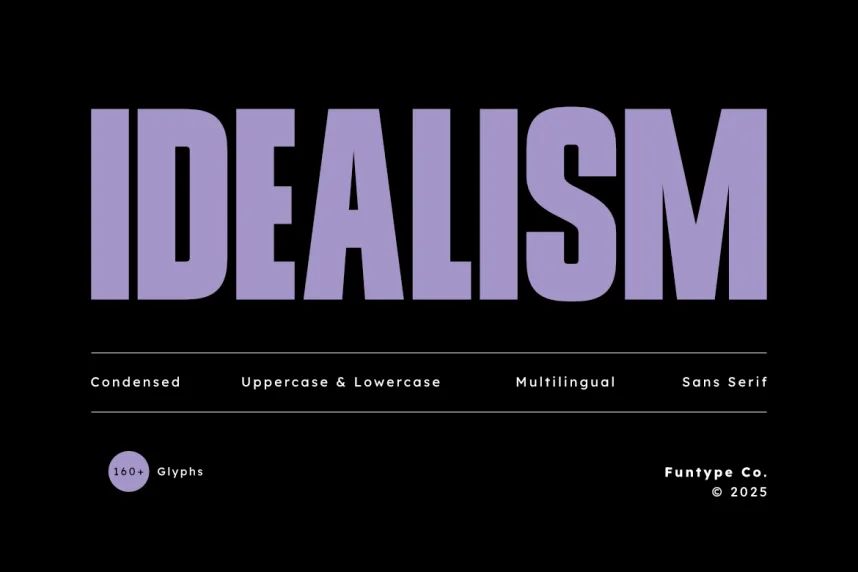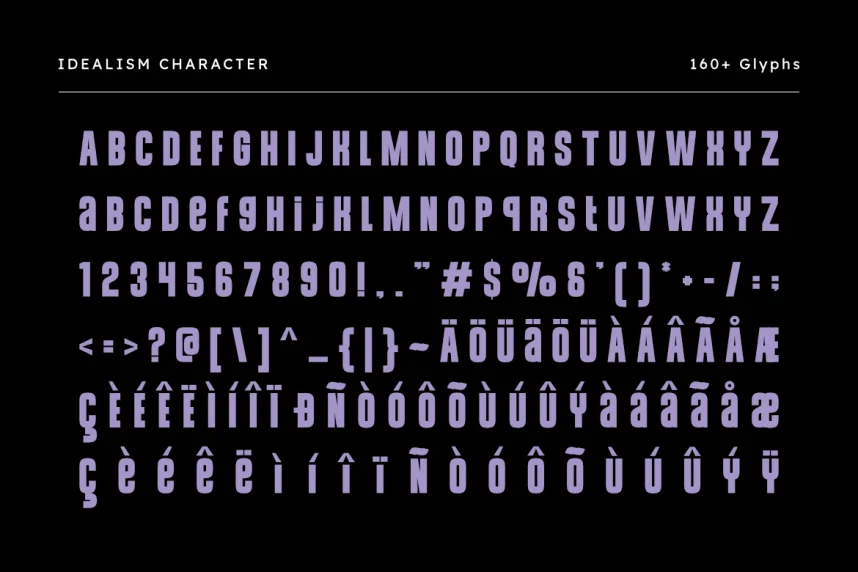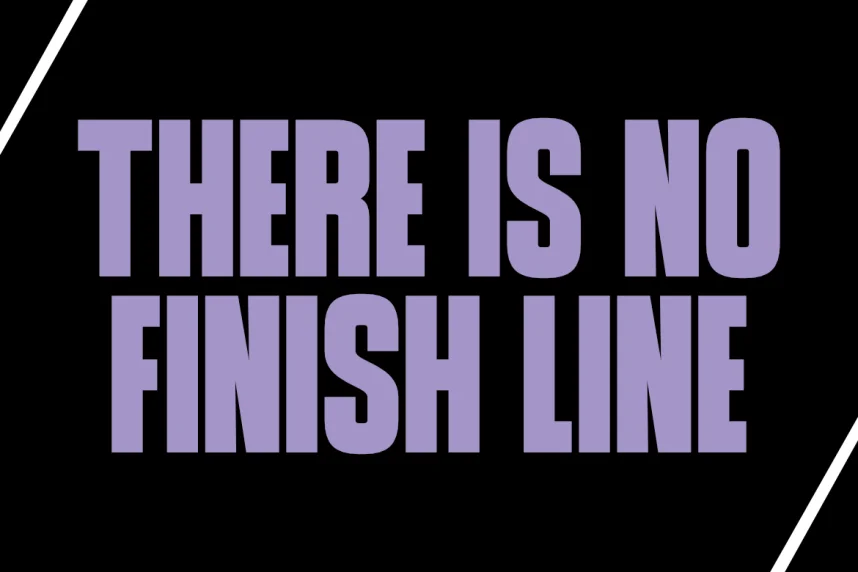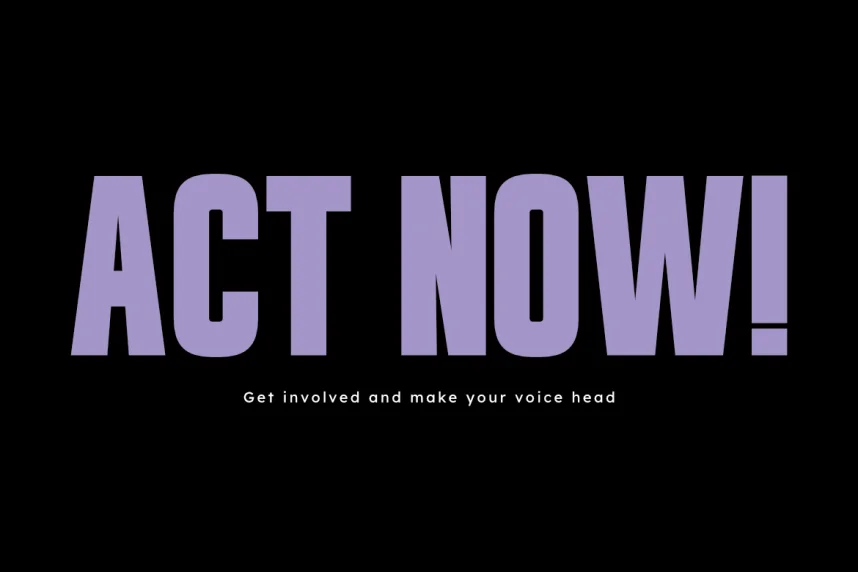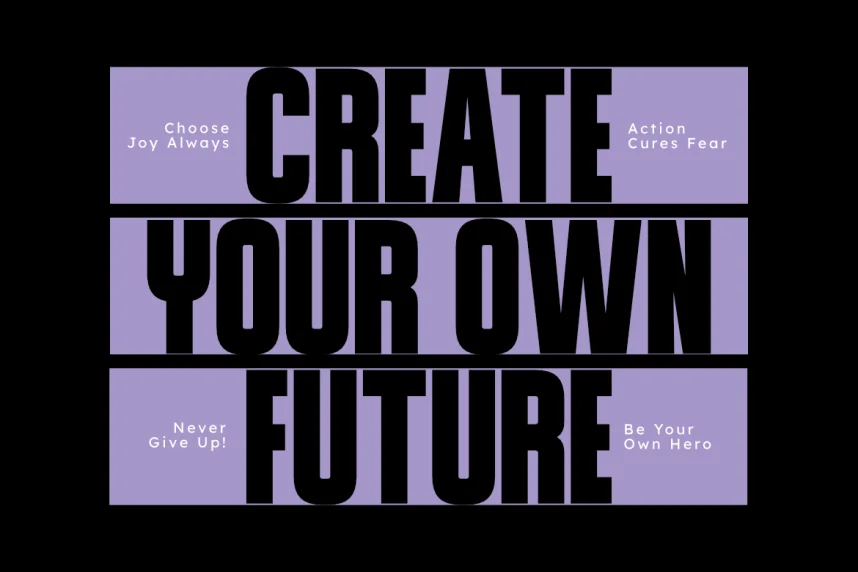
Idealism Font helps solve a common problem in branding and UI design: keeping text clear while giving layouts a modern, friendly tone. Designers use this sans-serif style for headings, product labels, website interfaces, and social posts where simple letterforms improve readability.
Idealism Font is a geometric sans-serif typeface with even stroke widths, open counters, and smooth curves. Its straight stems and rounded terminals create a clean structure that works well on both print and screens. The typeface appears in many design libraries, typically released in standard weights that support consistent visual hierarchy. Its shapes stay stable at small sizes, making it dependable for UI elements, navigation labels, and mobile layouts.
Idealism Font works best for branding systems, packaging, app interfaces, and digital ads. For long paragraphs, pair it with a humanist sans-serif to add warmth. For logo design, its bold weight provides strong letterform balance without losing clarity.